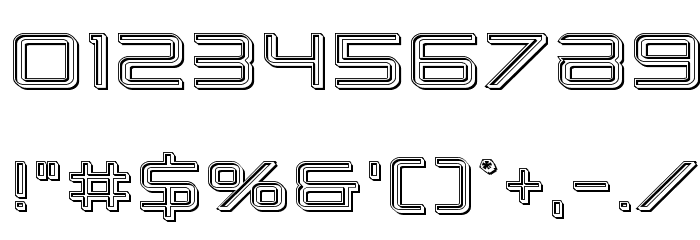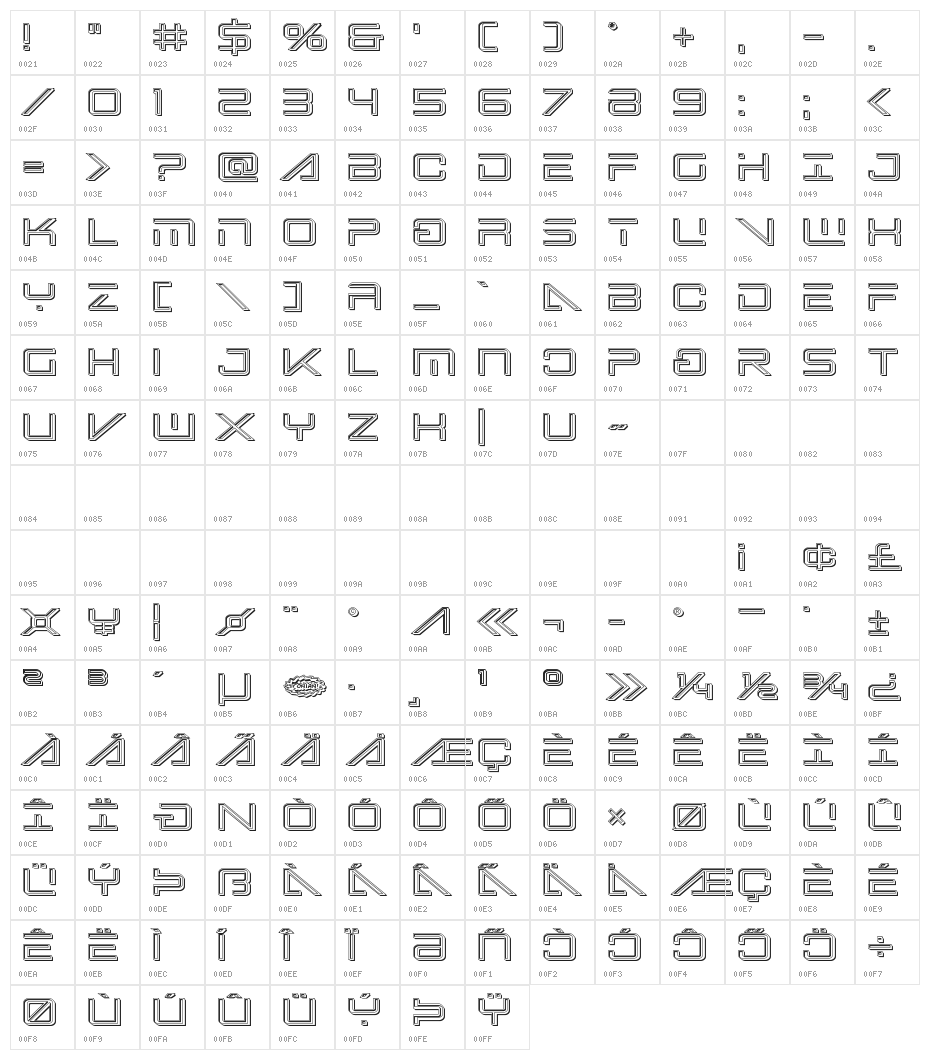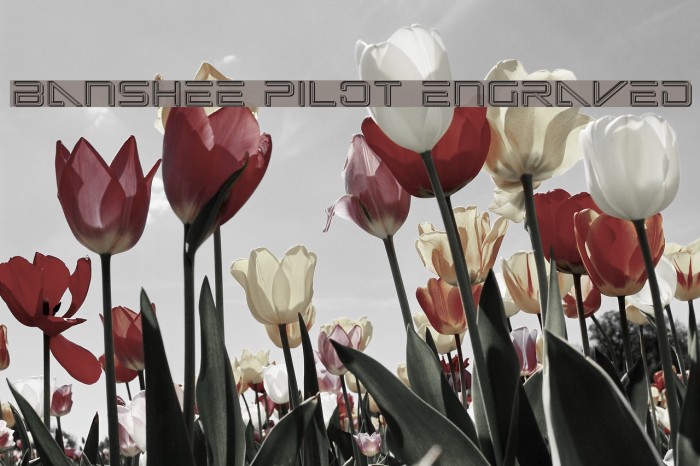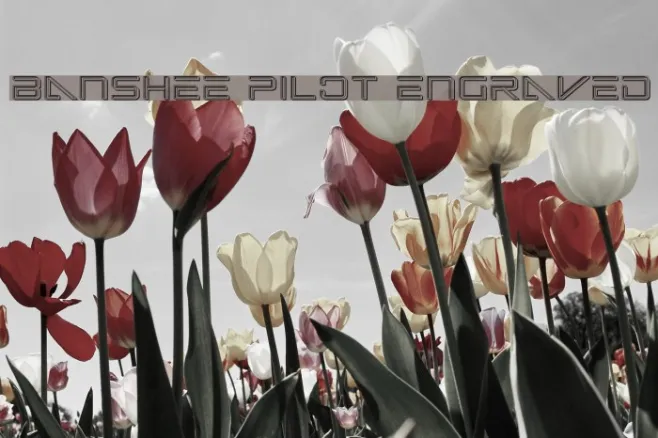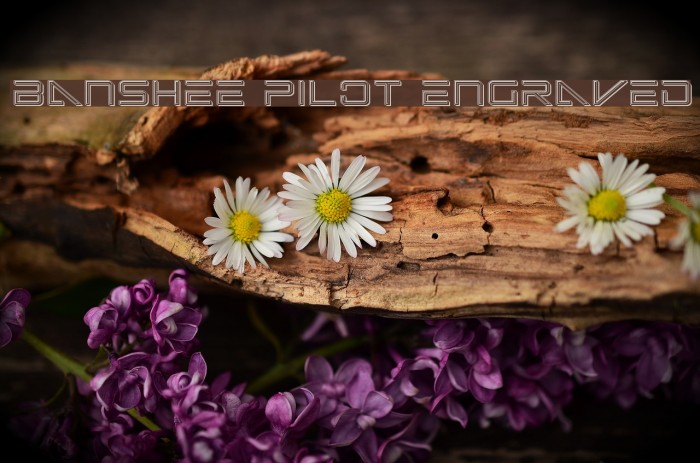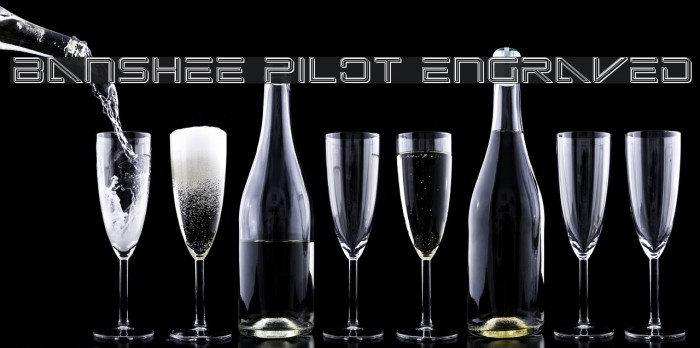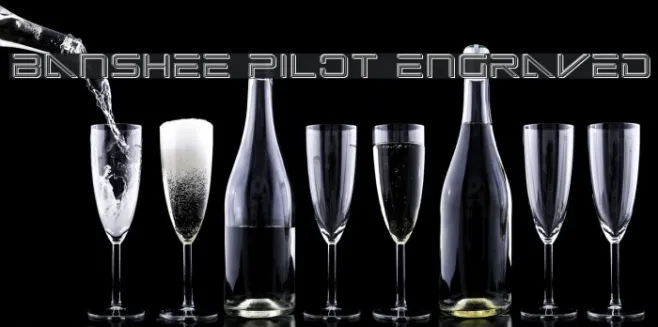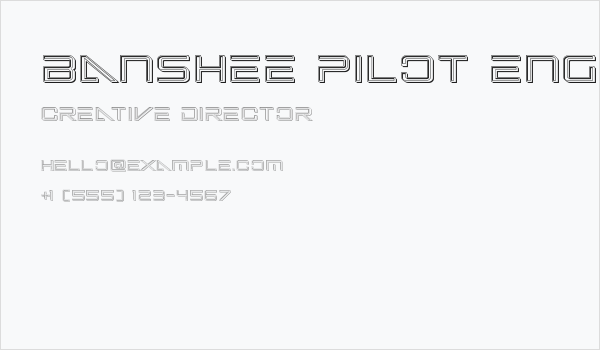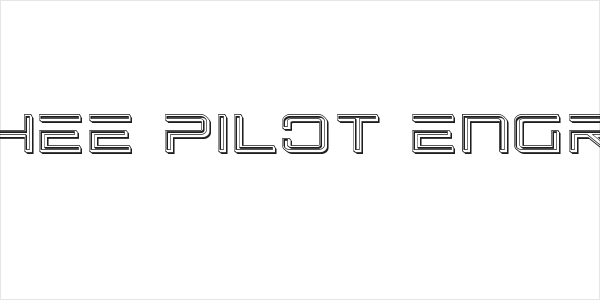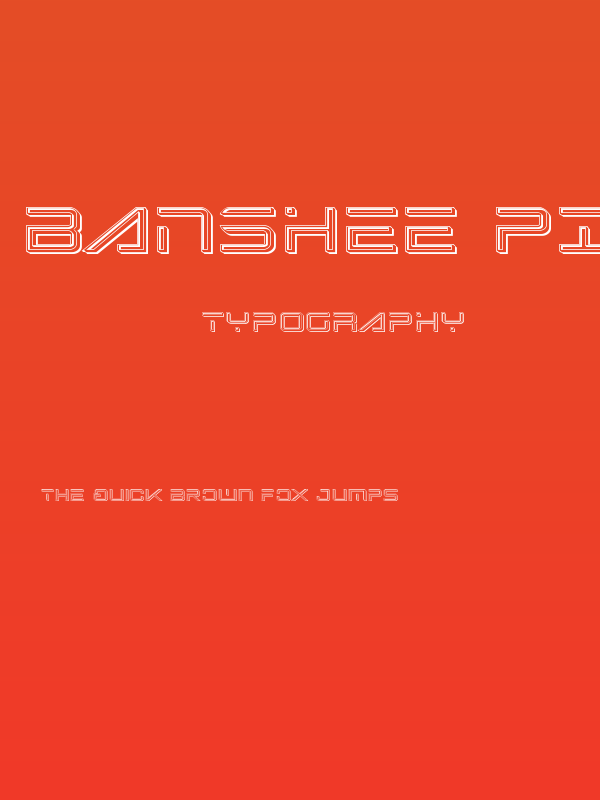
Banshee Pilot Engraved Font
Banshee Pilot Engraved Description
This font features a futuristic and geometric design with an engraved appearance. The characters are outlined with a double-line effect, creating a sense of depth and dimension. The angular and sharp edges give it a modern and tech-inspired look, suitable for digital and sci-fi themes. The uppercase and lowercase letters maintain a consistent style, while the numerals and special characters complement the overall aesthetic. The font's unique structure makes it stand out, ideal for projects that require a bold and distinctive typeface.
| Proposed Projects | Ideal for sci-fi movie posters, tech company logos, video game titles, and digital artwork. |